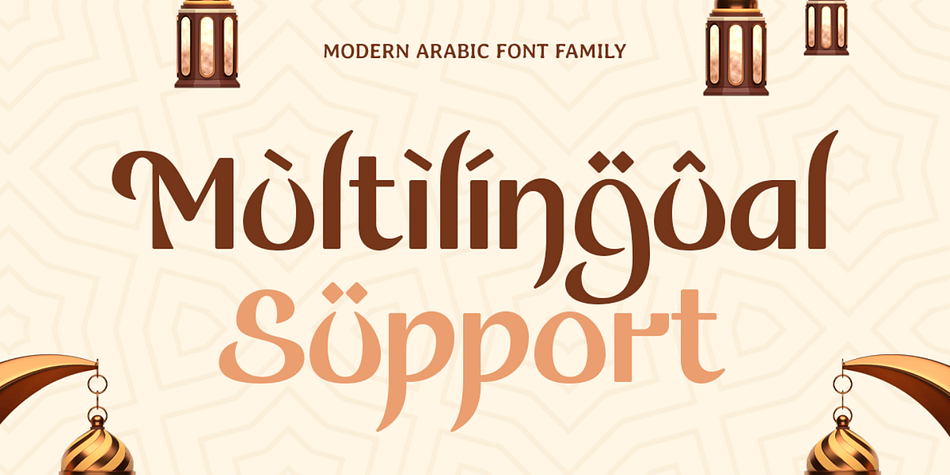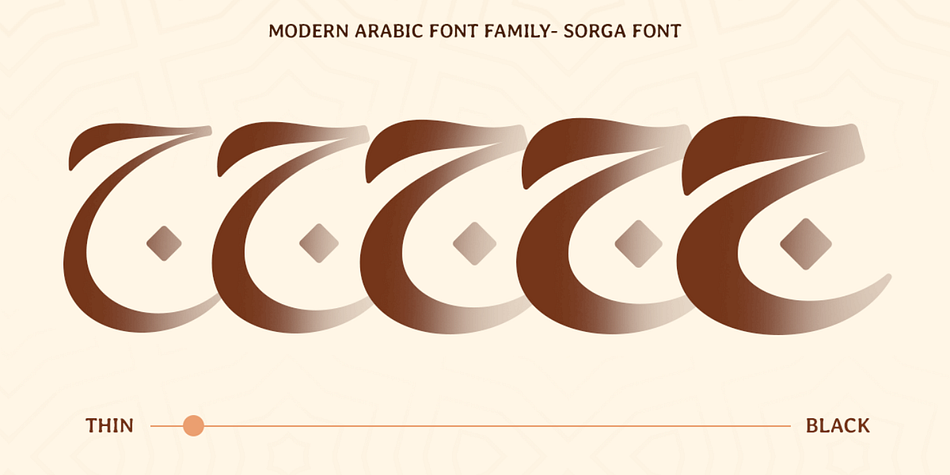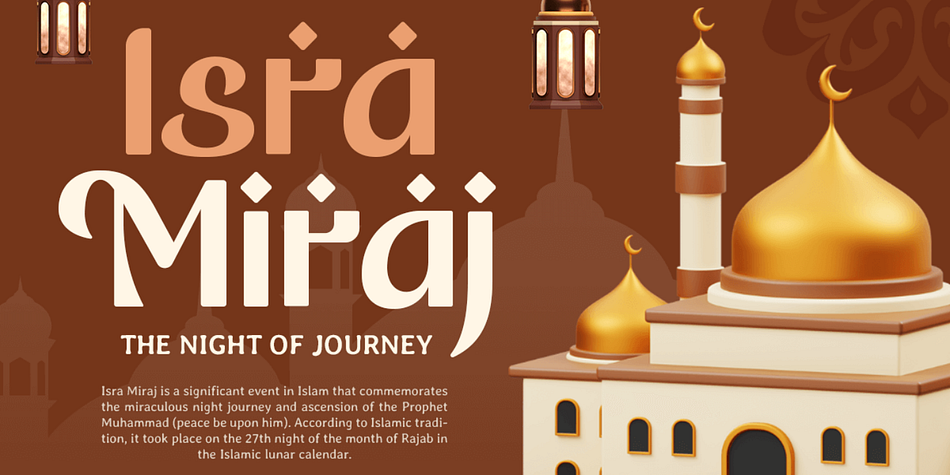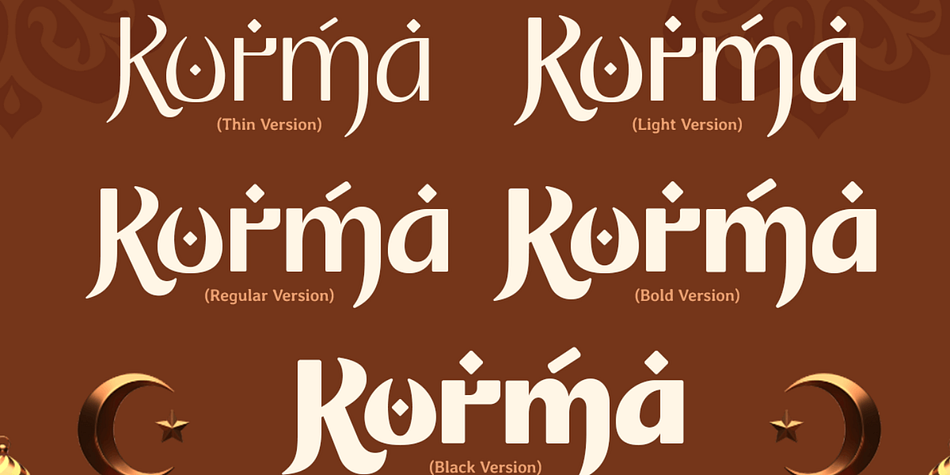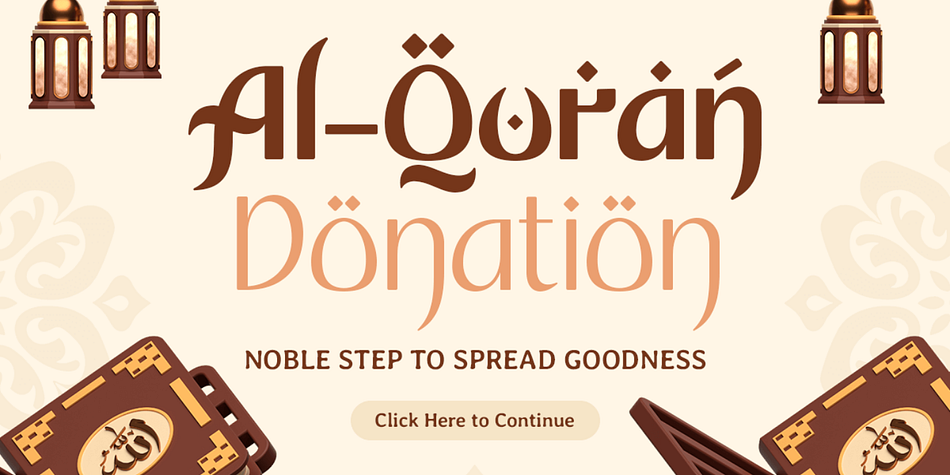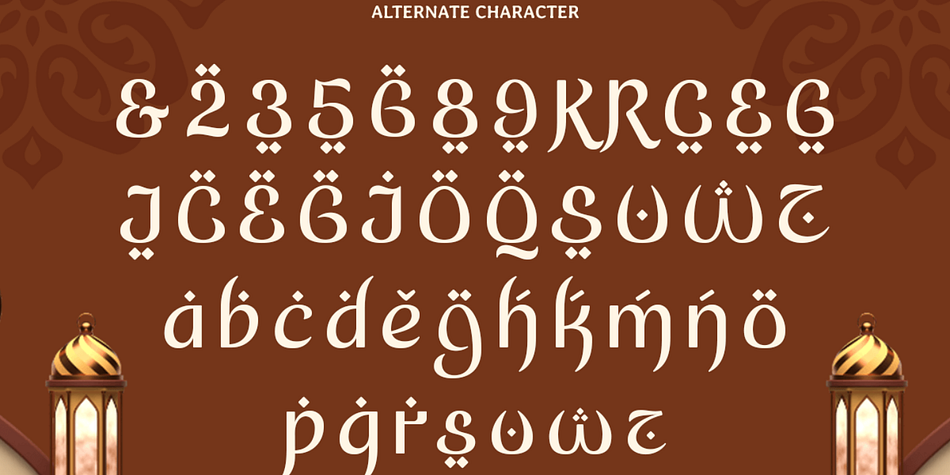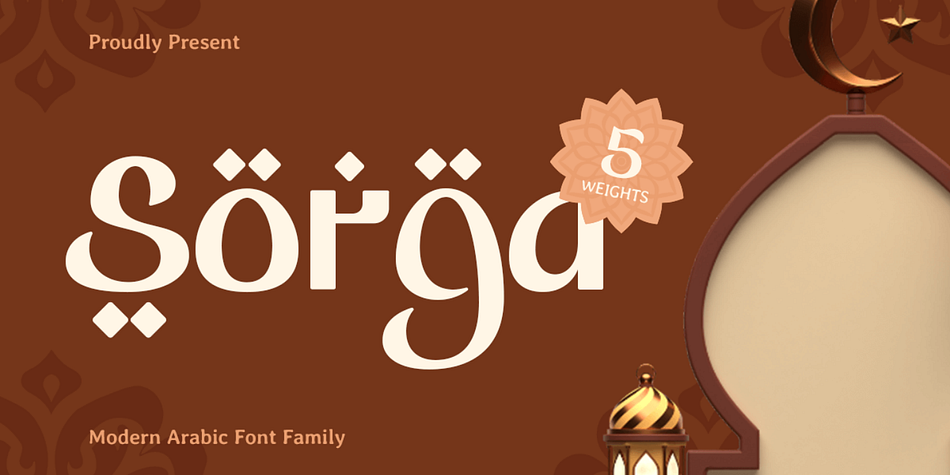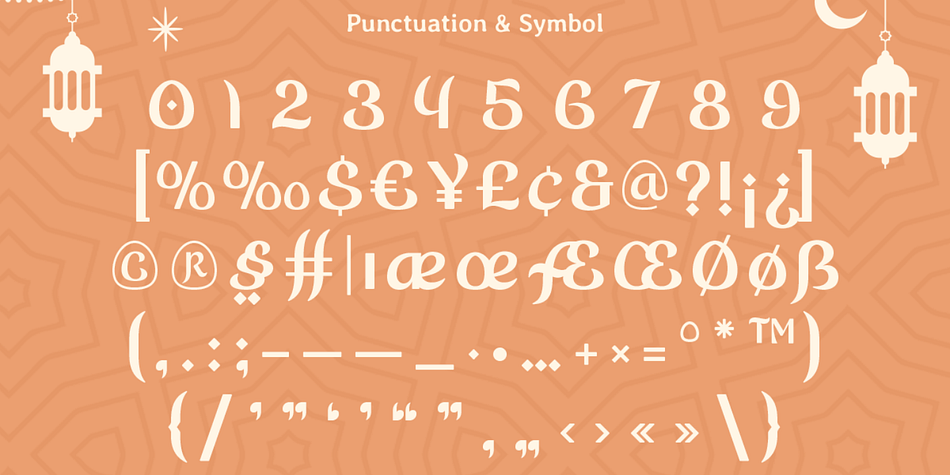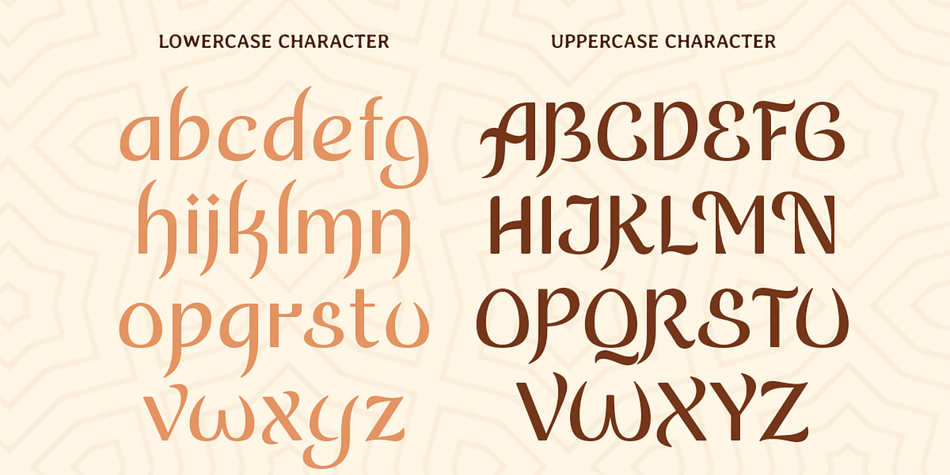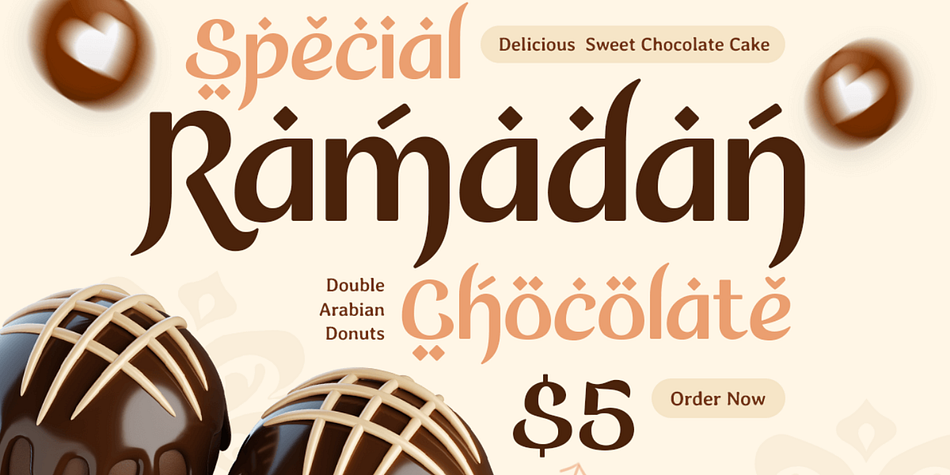
A Modern Take on Arabic Elegance
Sorga is a modern Arabic font family that brings a fresh perspective to traditional calligraphy. With its clean lines and refined design, it offers a perfect balance between cultural authenticity and contemporary aesthetics, making it an excellent choice for various creative projects.
Versatility for Every Design
Whether you’re crafting branding materials, headlines, logos, or packaging, Sorga adapts beautifully to any application. Its diverse weights and styles allow for ultimate versatility, ensuring your designs stand out with sophistication and style.
Celebrate Culture with Modernity
Sorga transforms the rich heritage of Arabic script into a modern masterpiece. Ideal for designers looking to blend tradition with innovation, this font family elevates any project with its elegance and artistic charm.
Sorga Modern Arabic Font Family Features:
Ready with 5 Weights
Alternates Characters Ready
Punctuation, Number, and Symbol
Uppercase and Lowercase
Opentype Features
Multilingual Characters available for:
Afrikaans, Albanian, Asu, Basque, Bemba, Bena, Breton, Chiga, Cornish, Dutch, English, Estonian, Filipino, Finnish, Friulian, Galician, German, Gusii, Indonesian, Irish, Italian, Kabuverdianu, Kalenjin, Kinyarwanda, Luo, Luxembourgish, Luyia, Machame, Makhuwa-Meetto, Makonde, Malagasy, Manx, Morisyen, North Ndebele, Nyankole, Oromo, Portuguese, Quechua, Romansh, Rombo, Rundi, Rwa, Samburu, Sango, Sangu, Scottish Gaelic, Sena, Shambala, Shona, Soga, Somali, Spanish, Swahili, Swedish, Swiss.